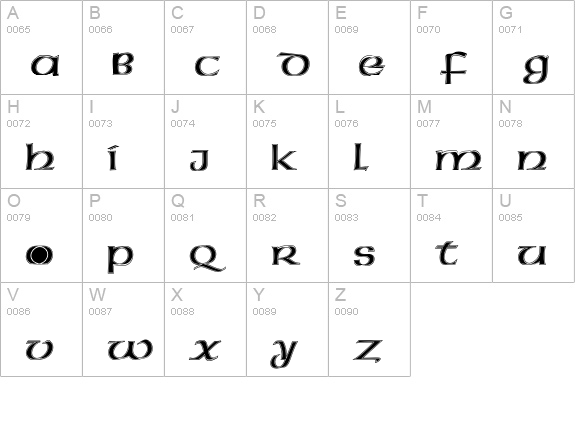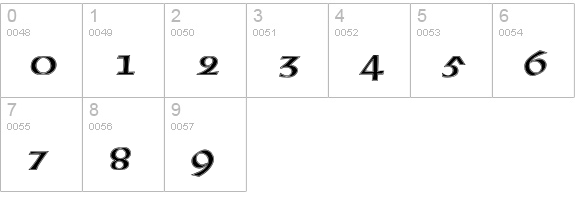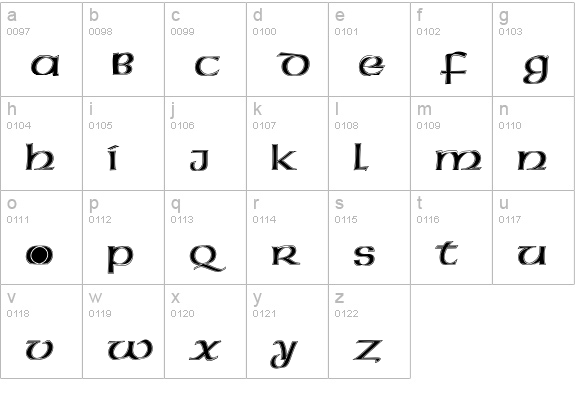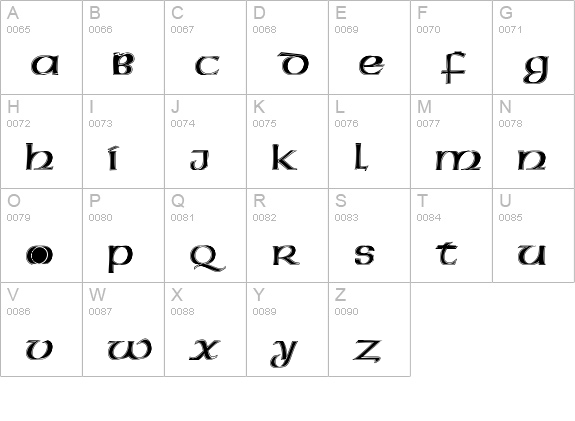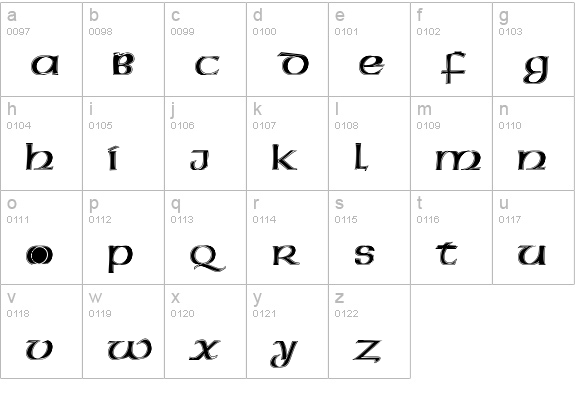
American Uncial D In1 Font Details
American Uncial D In1 font is a unique and elegant typeface that combines traditional Uncial letterforms with a modern twist. Its distinctive design features rich, flowing curves and a sense of history and tradition. The letters are bold and easy to read, making it a versatile choice for a wide range of design projects. This font is perfect for creating invitations, greeting cards, posters, and more. Whether you're looking to add a touch of sophistication to your designs or evoke a sense of nostalgia, American Uncial D In1 font is sure to make a statement. Best of all, this font is free to download at FontsMarket.com, making it accessible to designers of all levels. Don't miss out on the opportunity to add this beautiful typeface to your collection and elevate your designs to the next level.